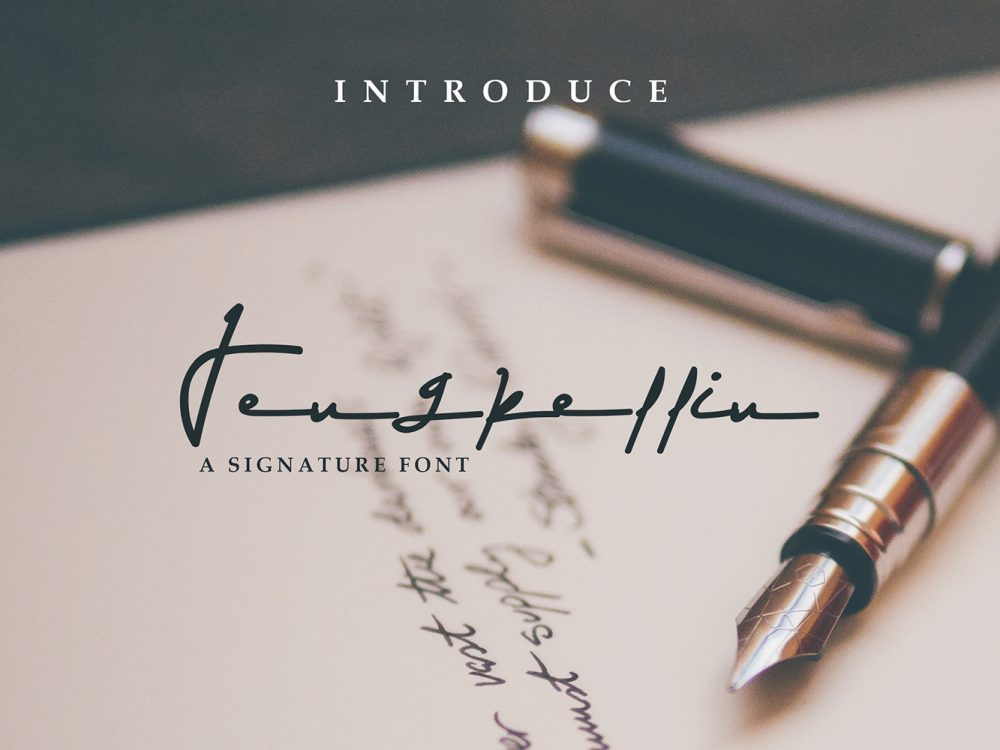
Jengkellin Signature Font
Jengkellin Signature Font is a modern, catchy handwritten font that has an elegant style and is very suitable for a variety of design projects that require a scripted font. You can use this font to create posters, wedding invitations, cards, branding, flyers, prints, and more.